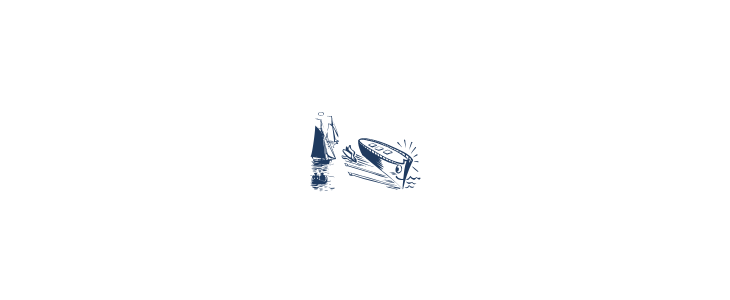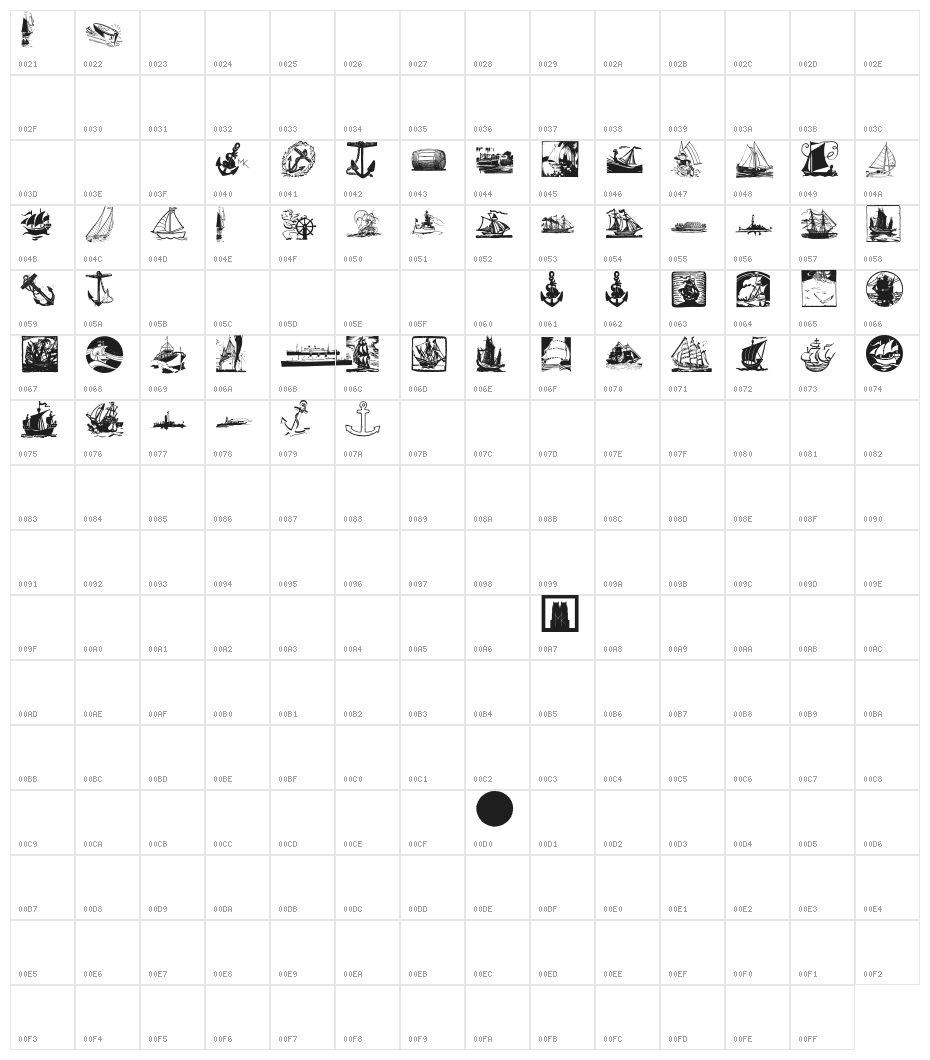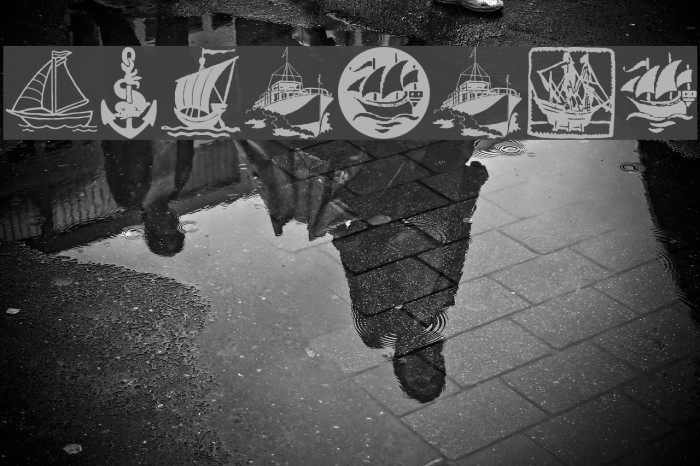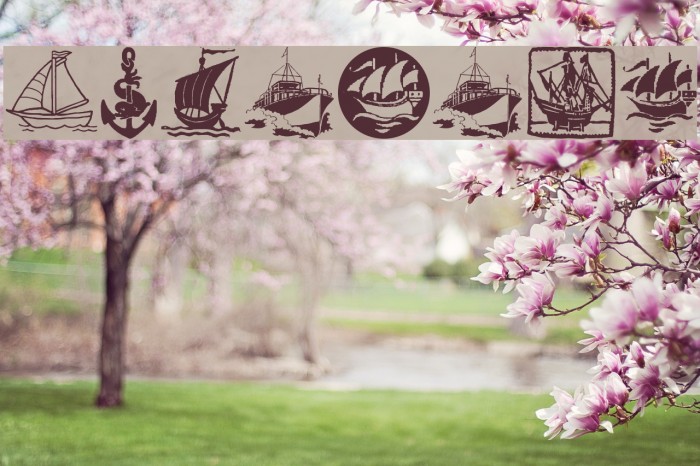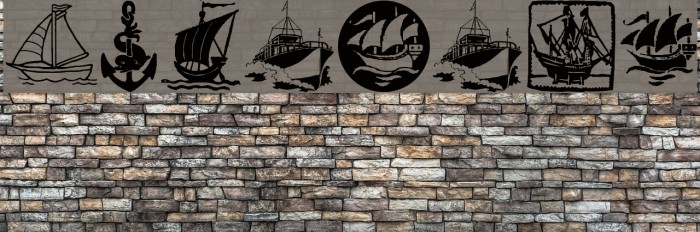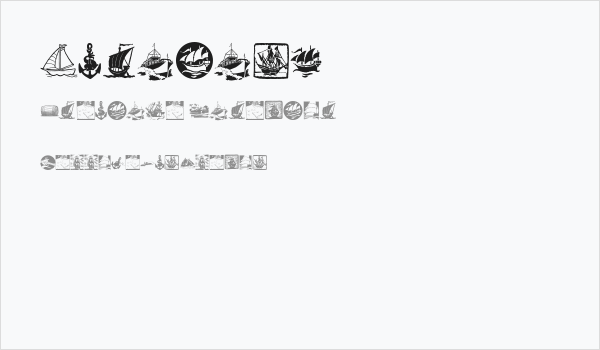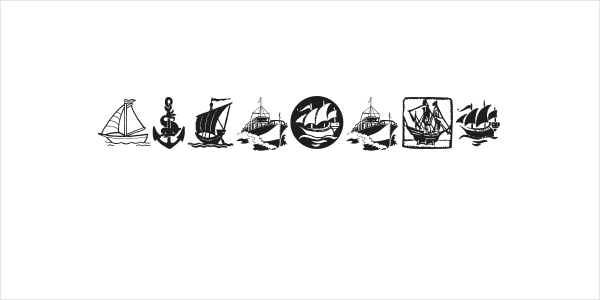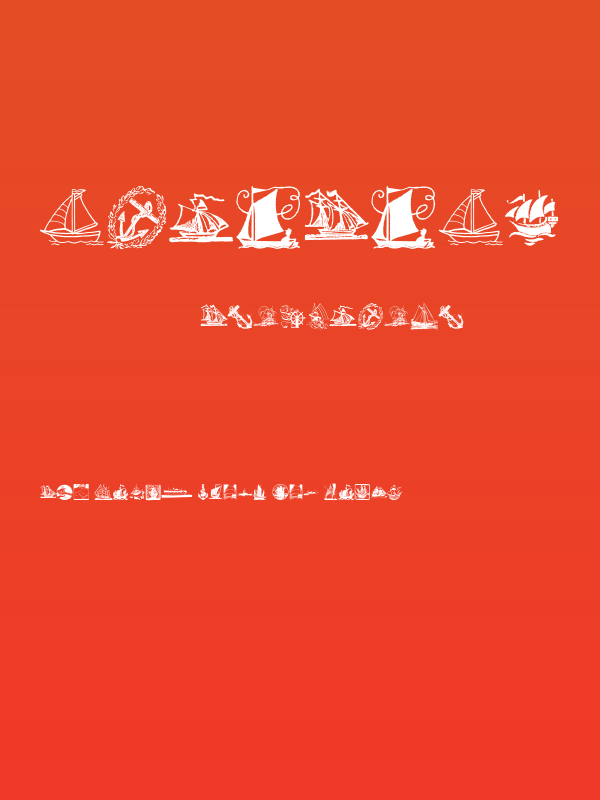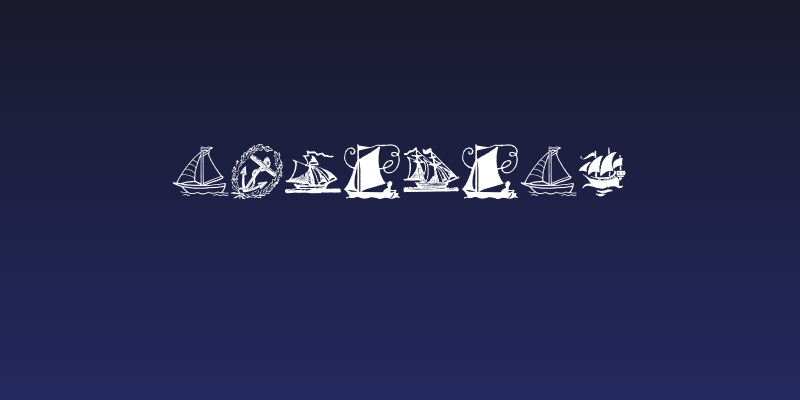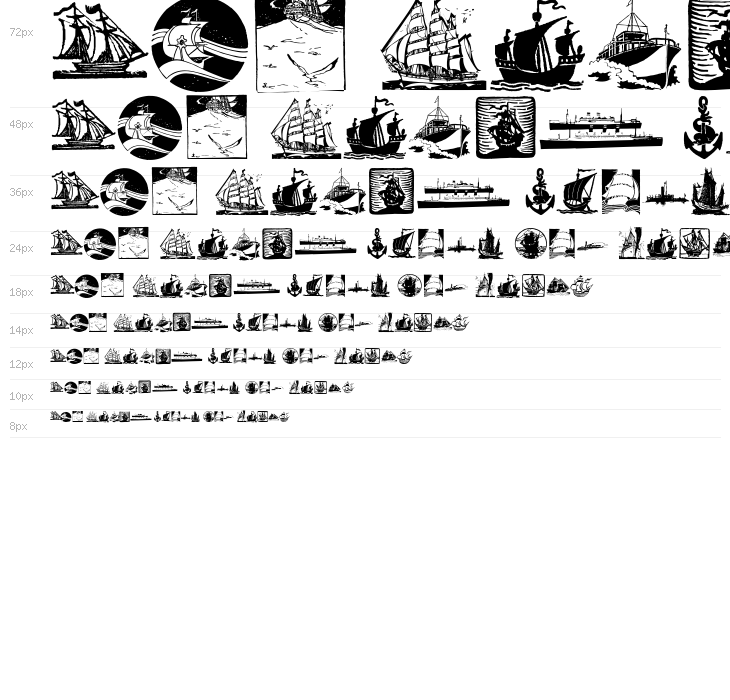
MaritimK Font
MaritimK Description
A decorative dingbat set featuring detailed maritime-themed illustrations such as ships, anchors, lighthouses, and nautical scenes, rendered in a hand-drawn, sketch-like style with high contrast and intricate line work.
| Overall Style | Decorative, Vintage, Hand-drawn |
| Use Case | Logos, Decorative elements, Themed graphics |
| Proposed Projects | Nautical-themed invitations, posters, scrapbooking, branding for maritime businesses, educational materials, and decorative elements. |